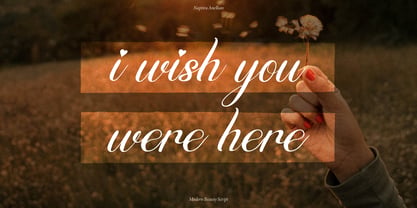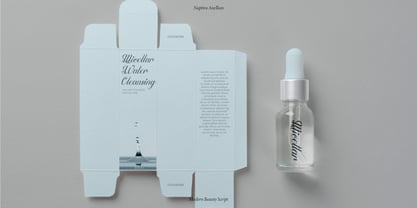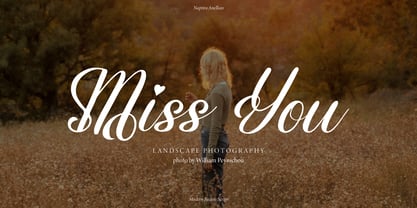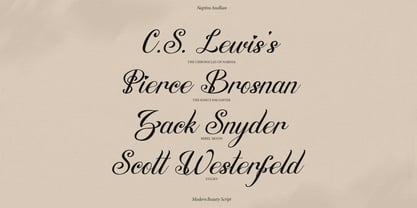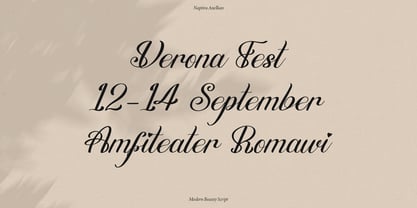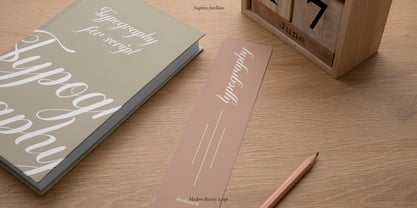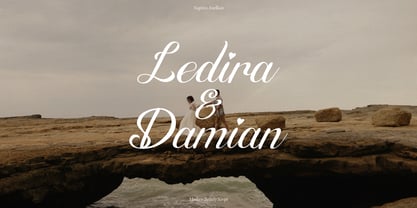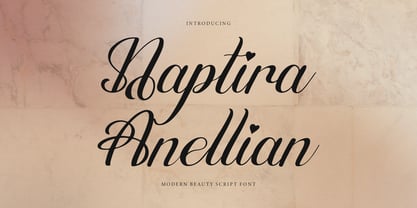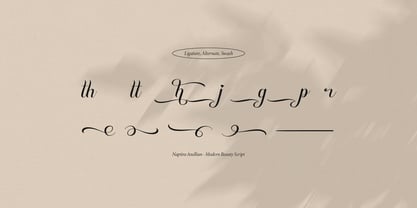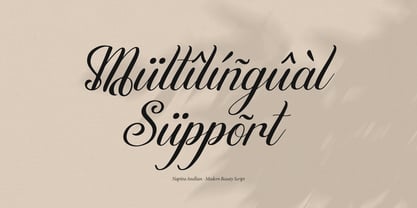
Naptira Anellian
Die Schriftfamilie Naptira Anellian wurde von entworfen und von Tini Fitriani veröffentlicht. Naptira Anellian enthält 2 Stile und Familienpaketoptionen.
Naptira Anellian | Modern Beauty Script,, from Gracetypestudio, suitable for any projects such as: logos, branding projects, homeware designs, product packaging, mugs, quotes, posters, shopping bags, t-shirts, book covers, name card, invitation cards, greeting cards, label, photography, watermark, special events, and all your other lovely projects that need a beautiful script taste.
• Regular and Italic
• Standard glyphs
• Alternate and Ligature
• Fonts include multilingual support